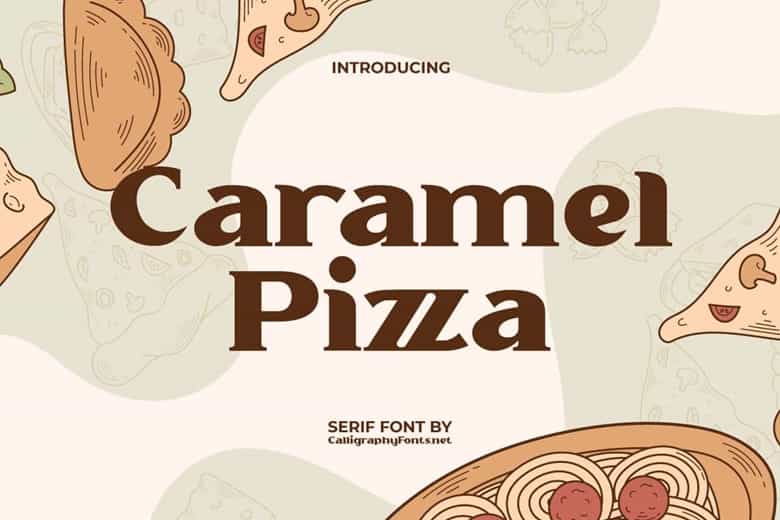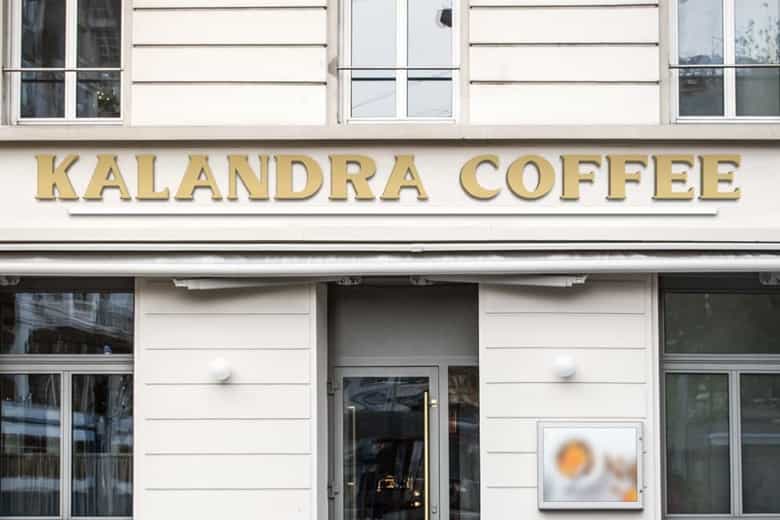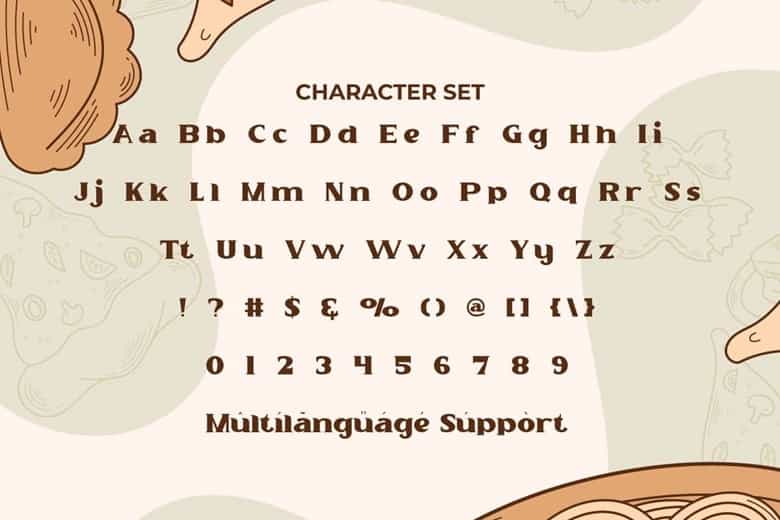
Caramel Pizza is a display serif font that aims to make your design are easy to read, easy to make yet also look great, inspired by classic serif typefaces but wrapped with fun and tempting theme. This font is suitable for all retro modern designs and projects.